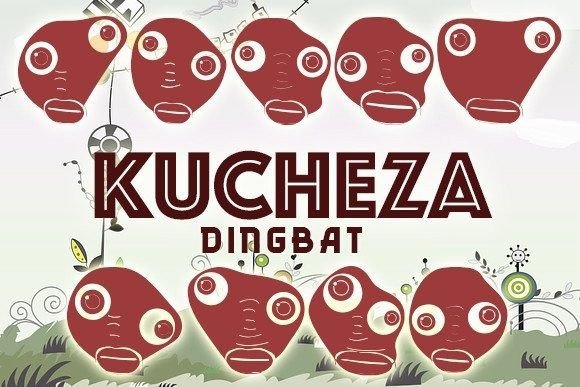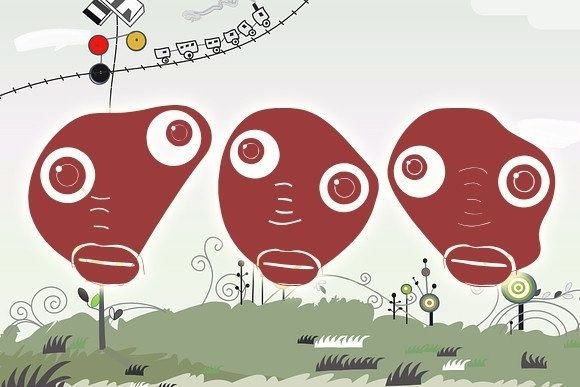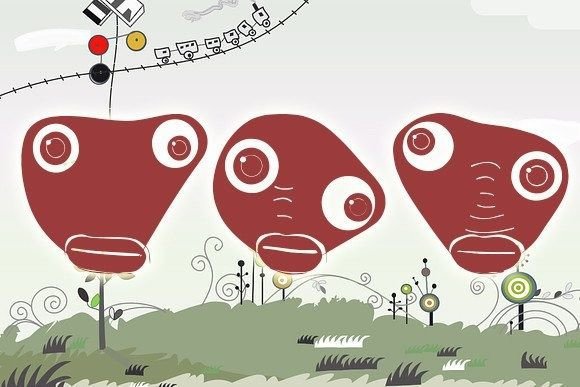
Kucheza Font
ABOUT KUCHEZA FONT
“Kucheza” is an incredibly adorable and fun dingbat font that will add a delightful touch to your designs. With its charming collection of illustrations, this font offers a wide range of playful and lively characters that are sure to capture attention and bring a smile to anyone who sees them.
Whether you’re creating flyers, posters, or shirts, “Kucheza” brings a joyful and whimsical element to your designs. The dingbat font features a variety of cute and expressive characters, including animals, plants, objects, and more. These illustrations are full of personality and can instantly enhance the visual appeal of your projects.
The versatility of “Kucheza” allows you to use the dingbats in numerous ways. You can use them as decorative elements, create patterns or borders, or even combine them to form unique compositions. The font’s playful style adds a touch of excitement and positivity to your designs, making them stand out and leave a lasting impression.
When used on flyers, “Kucheza” can attract attention and convey a sense of fun and adventure. The adorable characters can be used to highlight key information, create eye-catching titles, or add a touch of whimsy to the overall design.
On posters, “Kucheza” adds a lively and vibrant element that draws viewers in and creates an engaging visual experience. Whether you’re designing for events, promotions, or simply want to add a playful touch, the dingbat font’s charming illustrations will make your posters unforgettable.
And when it comes to shirts, “Kucheza” can transform ordinary apparel into something extraordinary. The cute and expressive characters can be placed on the front, back, or sleeves of the shirt, creating a unique and eye-catching design that stands out from the crowd.
So, let your creativity run wild with “Kucheza” and bring a dose of adorableness to your designs. Whether you’re aiming for a whimsical and playful look or simply want to add a touch of charm, this dingbat font is the perfect choice for flyers, posters, and shirts. Embrace the joy and cuteness of “Kucheza” and watch as your designs come to life with its delightful illustrations.